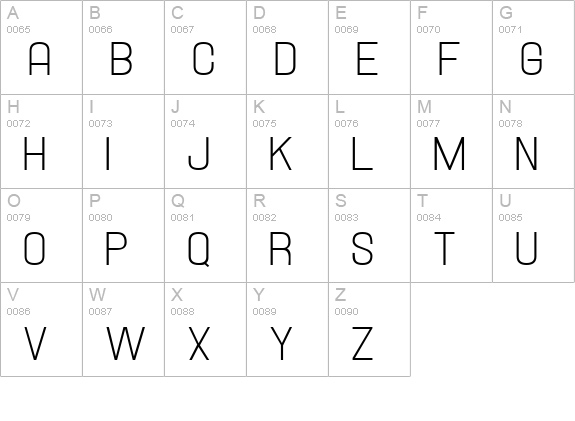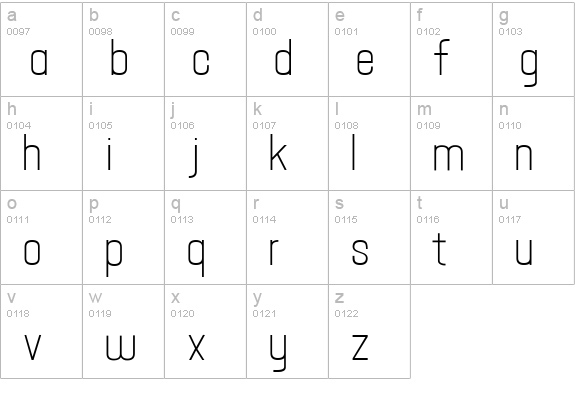
Hallandale Text JL Font Details
Hallandale Text JL font is a stunning typeface that combines elegance and simplicity. With its clean and modern design, it is perfect for a wide range of projects, from branding and advertising to web design and print materials. This font features a unique blend of sharp edges and smooth curves, giving it a distinctive and eye-catching appearance. The tall and slender letterforms add a touch of sophistication, making it ideal for high-end and luxury designs. One of the standout features of Hallandale Text JL font is its versatility. It is suitable for both headlines and body text, ensuring that your message is clear and easy to read. The balanced letter spacing and generous x-height contribute to excellent legibility, even at small sizes. And the best part? Hallandale Text JL font is free! You can freely download it at FontsMarket.com, making it accessible to designers and creatives of all backgrounds. Whether you're a professional designer or a hobbyist, this font is available for you to use and enjoy without any restrictions. So why wait? Elevate your designs with the elegant and modern Hallandale Text JL font. Download it for free at FontsMarket.com and let your creativity shine!